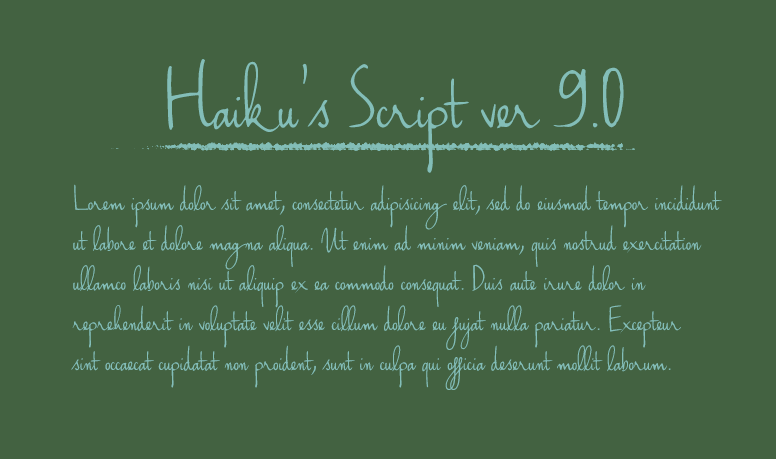
Poemhaiku — Haiku's Script - Unicode Font - updated ver 8.0
So beautiful detalization!
I love the font but does this come with numbers too?
Poemhaiku In reply to JasmineAlexandra [2011-12-07 06:09:43 +0000 UTC]
Yes This font contains both letters and numbers and other espescial characters, you will see all of them at file RAR or at fontspace: [link]
This is great. What you might want to do is have alternate forms for the g and k. Actually, the g and k you have now are great on the end of words, but not in the middle. They should probably be the alternate forms. You already have a g with a shorter tail in your 'gi' glyph; you just need to make a k with a shorter tail. These are just suggestions, because I love the font!!!
Poemhaiku In reply to fleisch2 [2011-09-13 09:25:32 +0000 UTC]